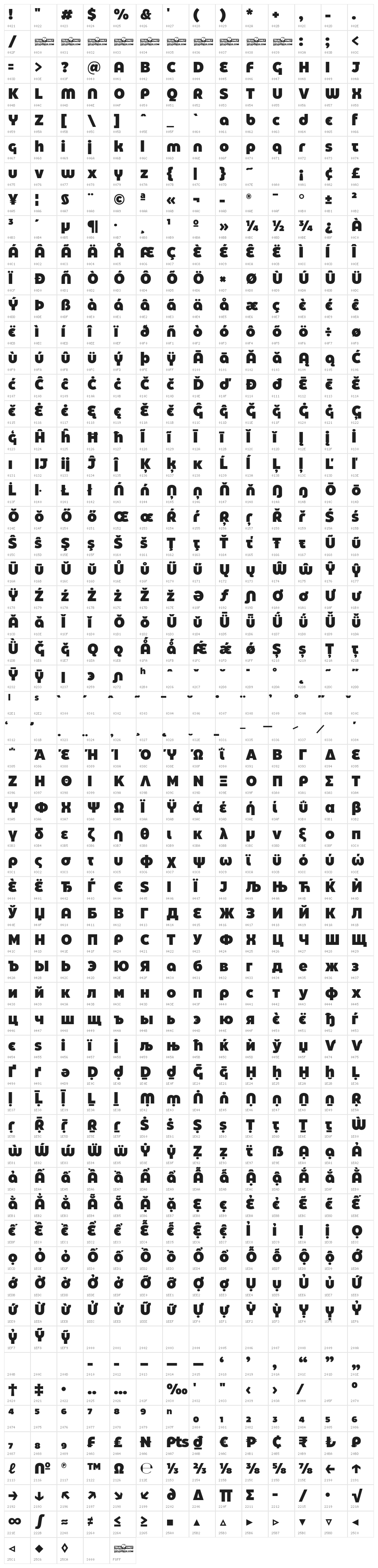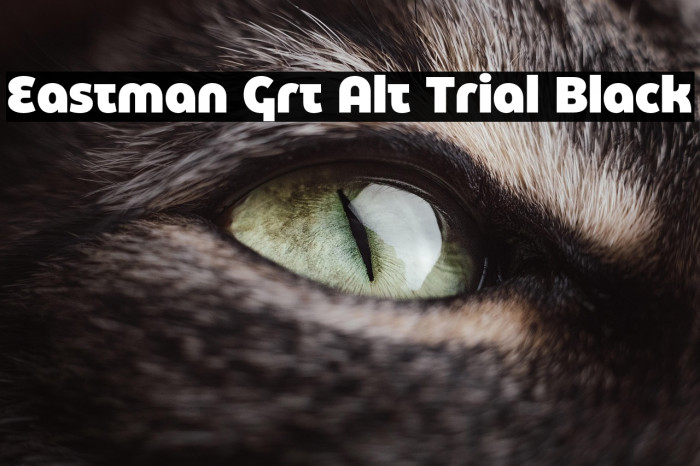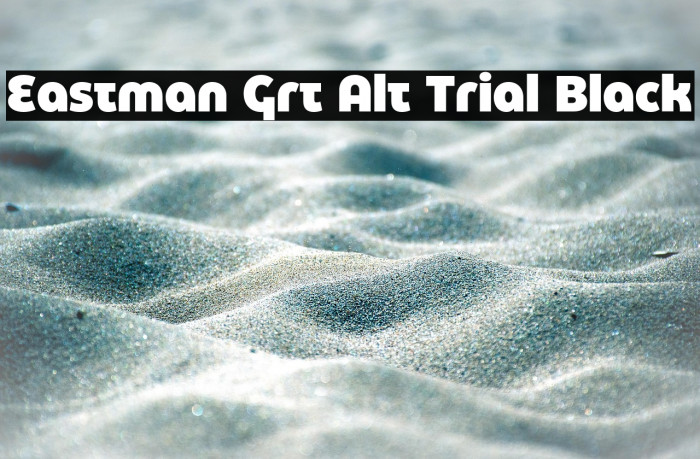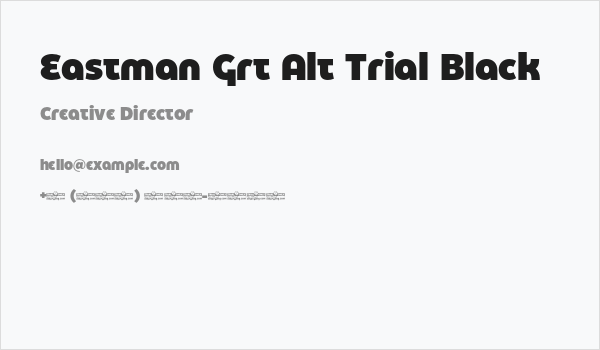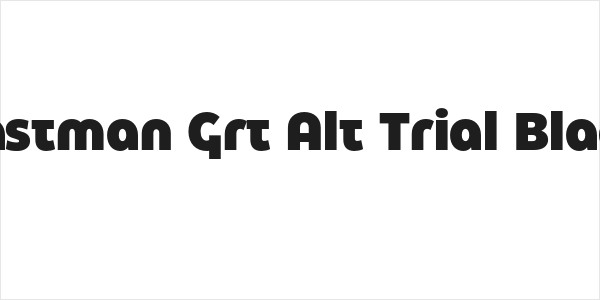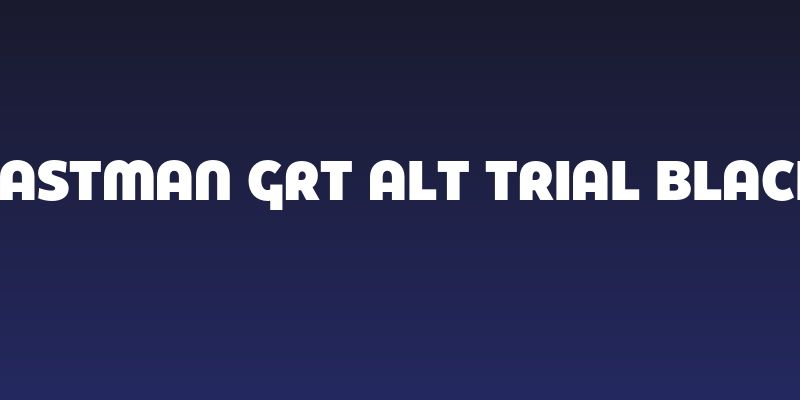
Eastman Grt Alt Trial Black Font
Eastman Grt Alt Trial Black Description
This font features bold, geometric letterforms with a strong presence. The characters are uniformly thick, providing a consistent and powerful visual impact. The rounded edges and smooth curves add a touch of modernity, while the overall structure maintains a sense of stability and strength. The uppercase and lowercase letters are well-proportioned, ensuring readability and versatility. The numerals and special characters are designed to match the bold style, making them suitable for various applications. This font is ideal for projects that require a striking and memorable typeface.
| Proposed Projects | Ideal for branding, posters, headlines, and any design requiring a bold statement. |